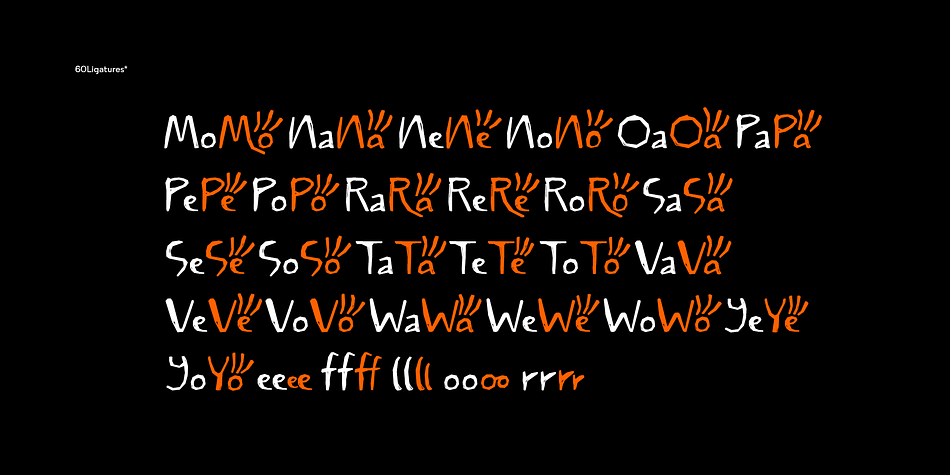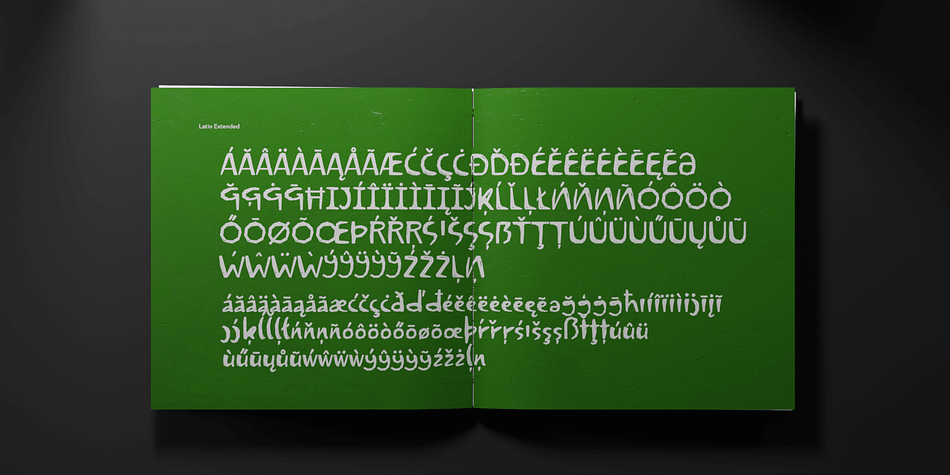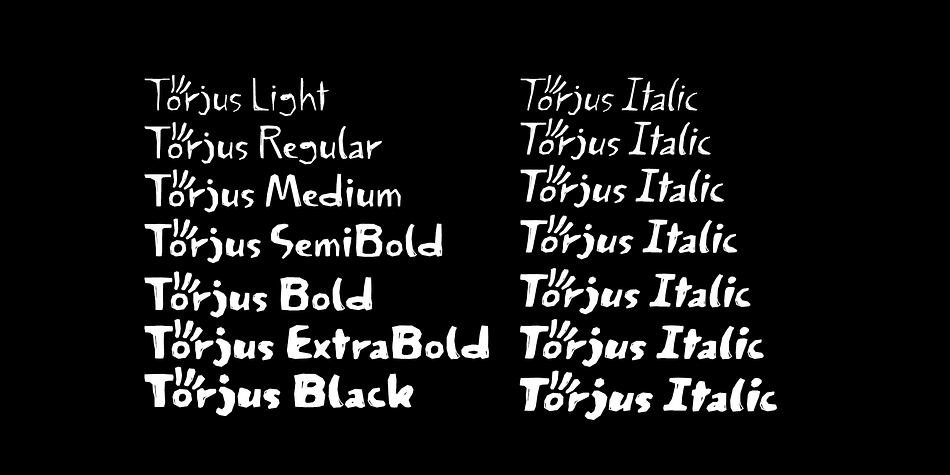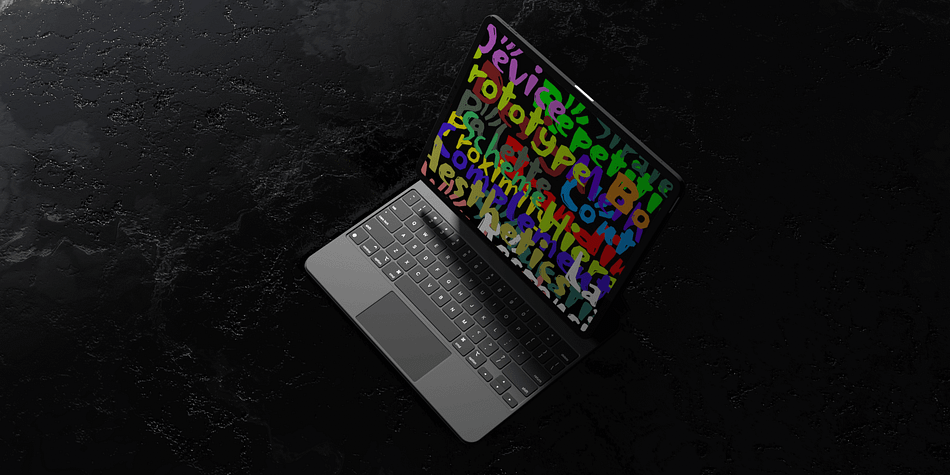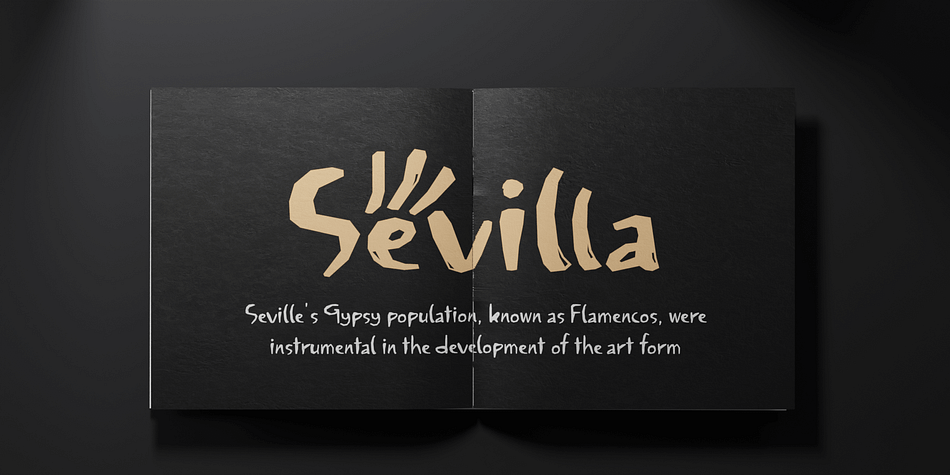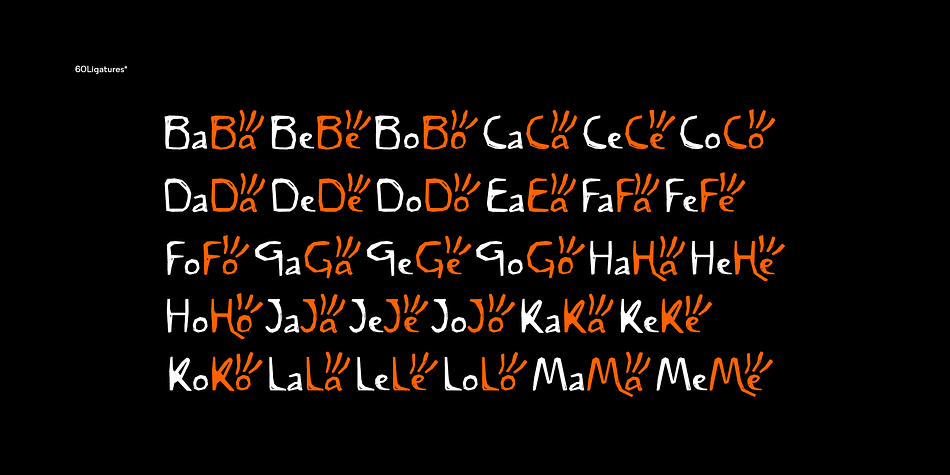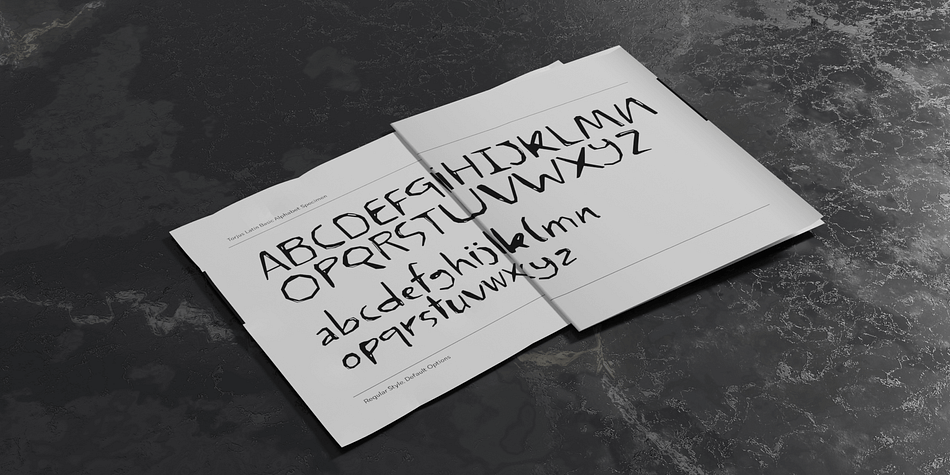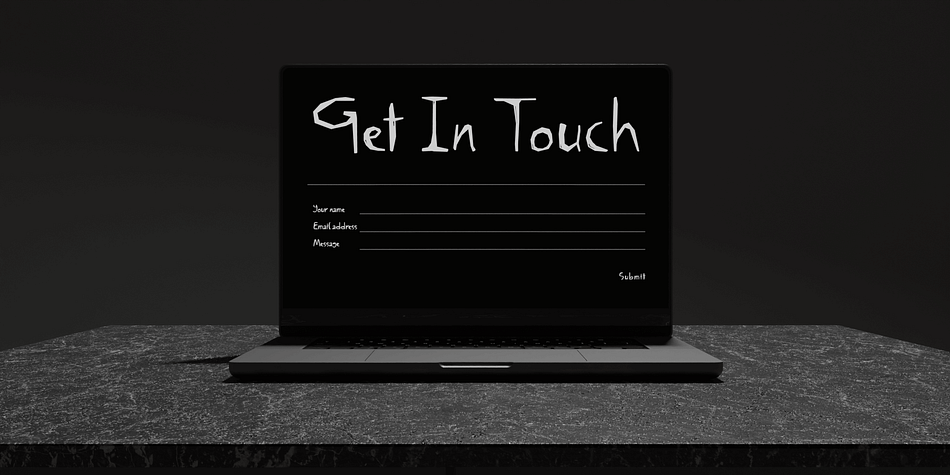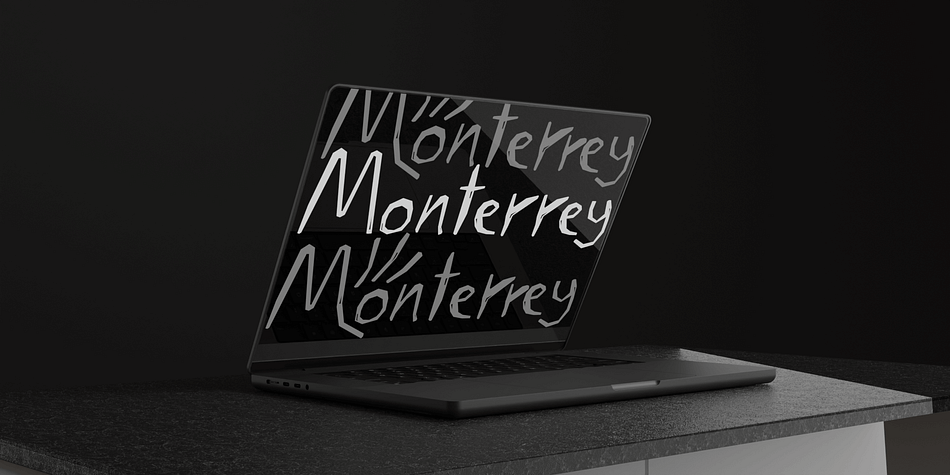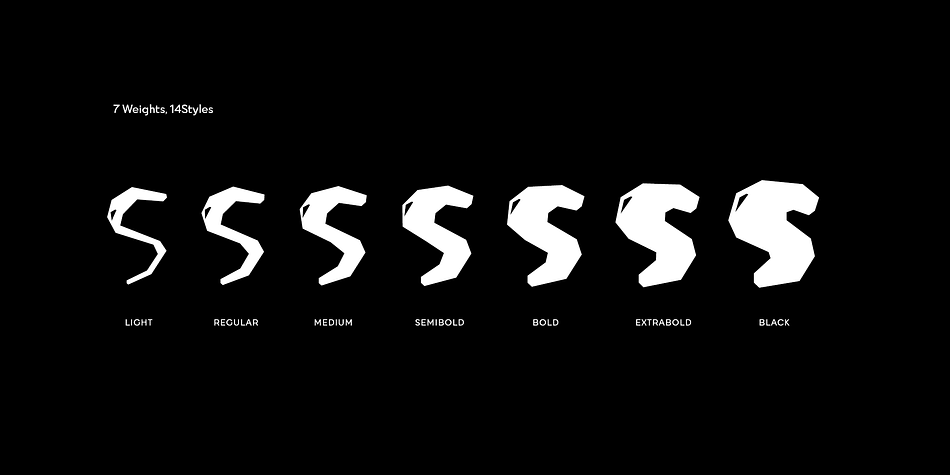
Torjus
Torjus is a display sans and hand drawn font family. This typeface has fourteen styles and was published by Brenners Template.
Torjus is so rigid and stiff typeface. While designing a more dry and stiff handwriting typeface, I tried to remove the Bezier curves. Rhythms were also created by dramatically simplifying the paths used in the Glyphs and emphasizing individual contrasts. 60 predefined Ligatures to bring your passion and inspire you to wonder.
- Ligatures : Ba, Be, Bo, Ca, Ce, Co, Da, De, Do, Ea, Fa, Fe, Fo, Ga, Ge, Go, Ha, He, Ho, Ja, Je, Jo, Ka, Ke, Ko, La, Le, Lo, Ma, Me, Mo, Na, Ne, No, Oa, Pa, Pe, Po, Ra, Re, Ro, Sa, Se, So, Ta, Te, To, Va, Ve, Vo, Wa, We, Wo, Ye, Yo, ee, ff, ll, oo, rr.
Foundry Brenners Template
Styles Display Sans, Hand Drawn